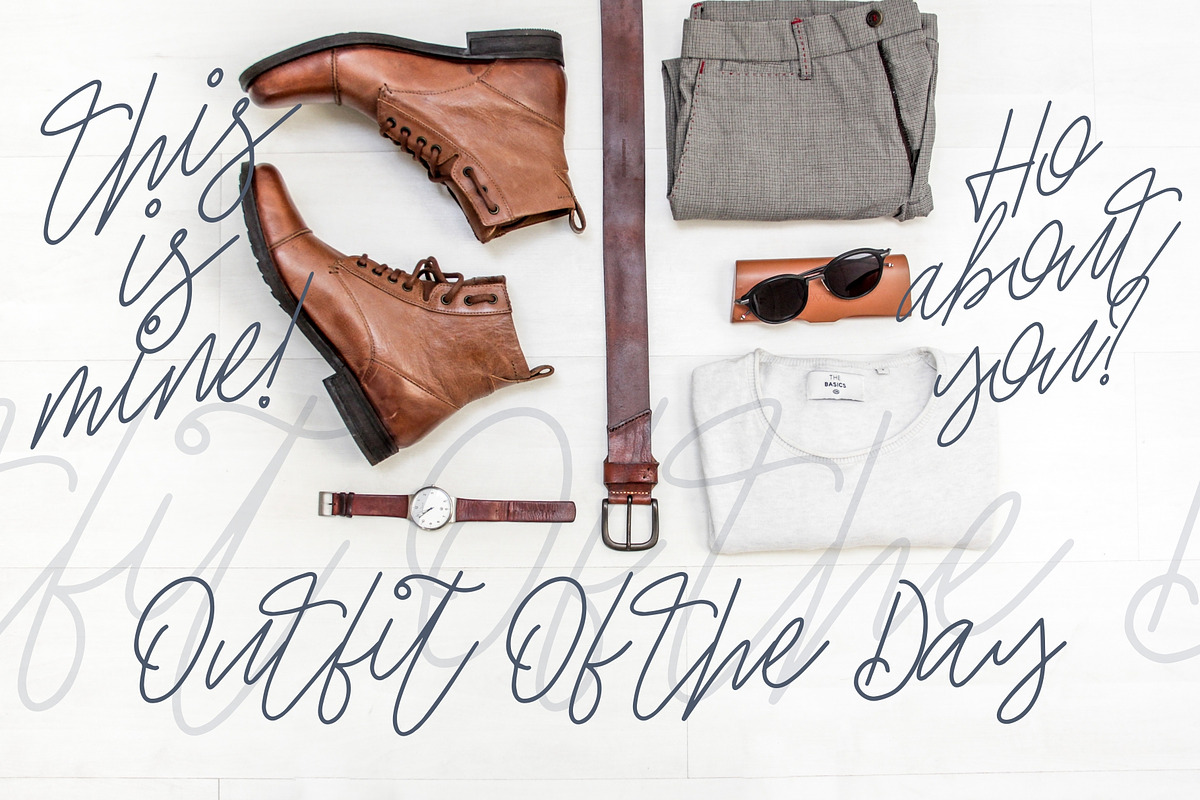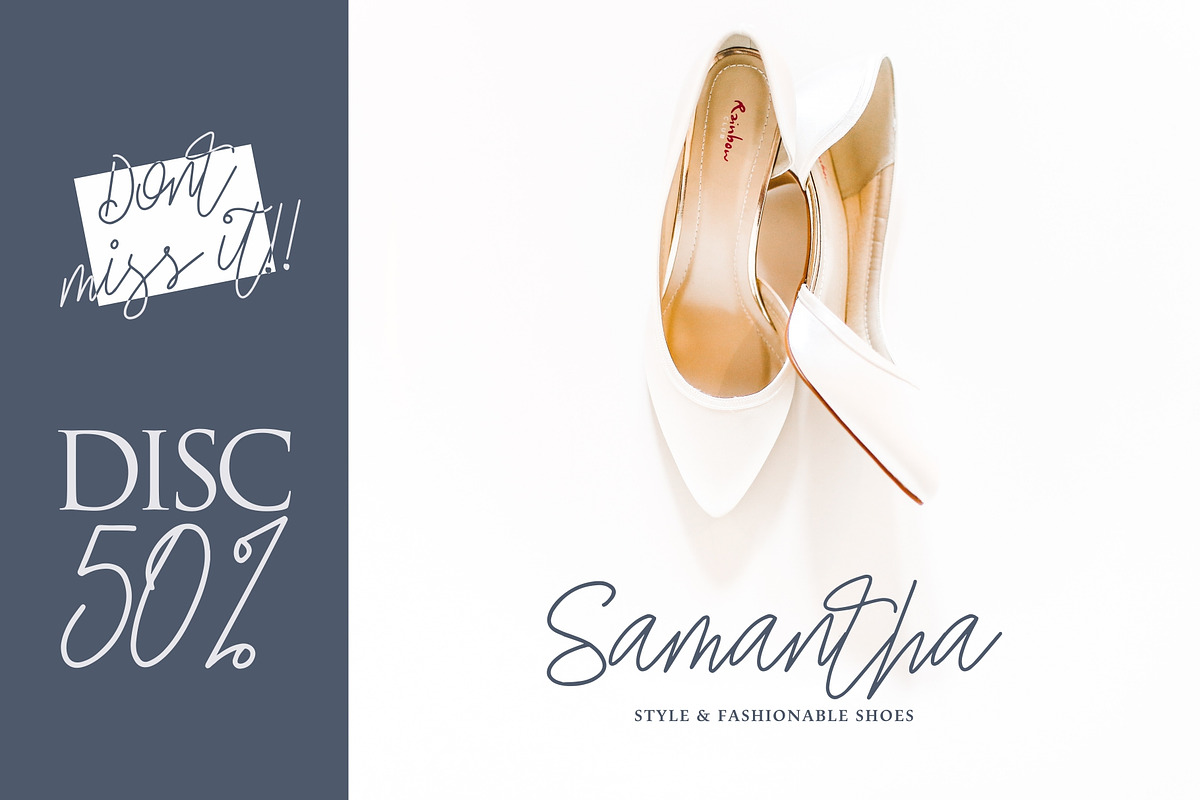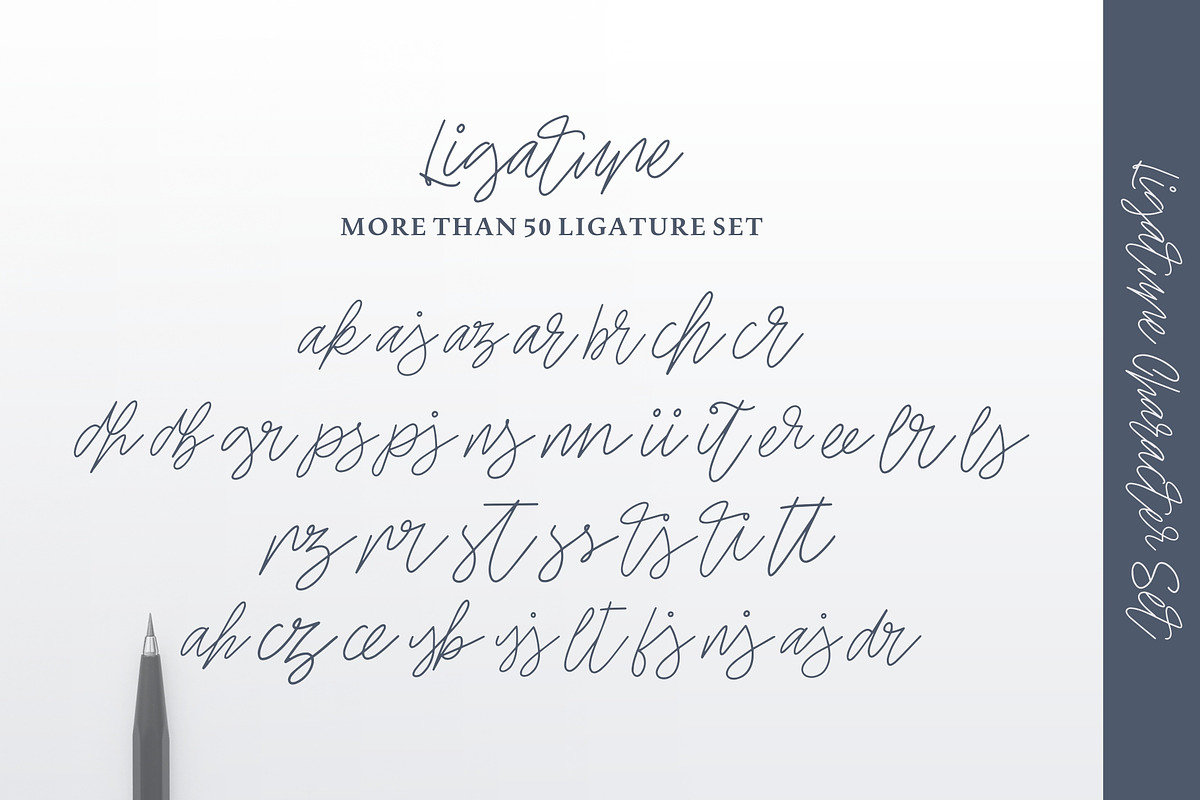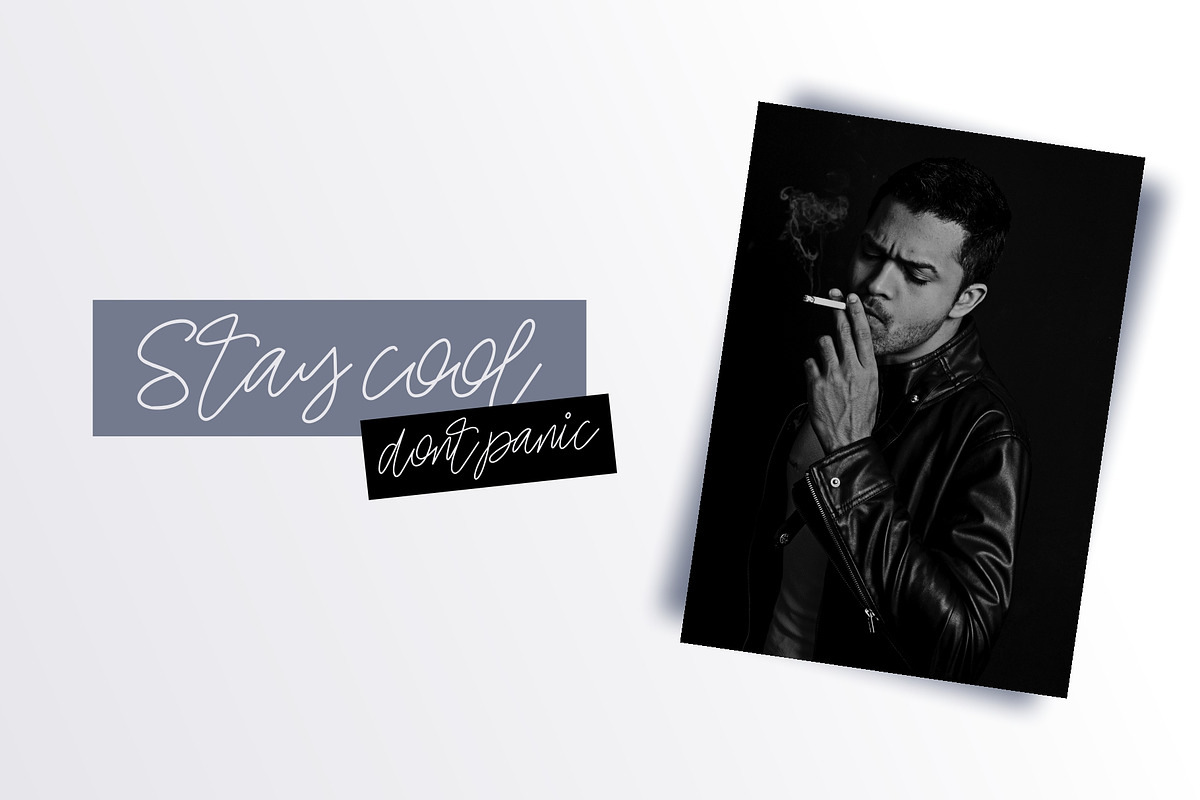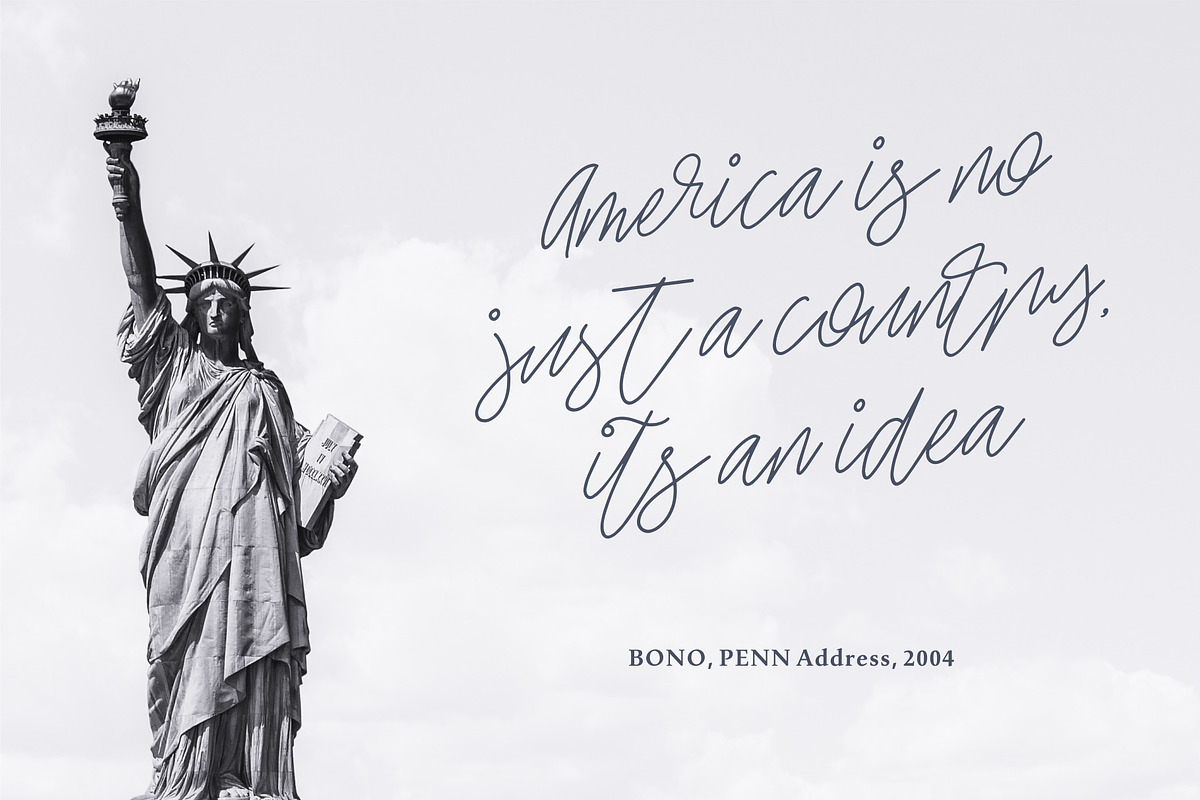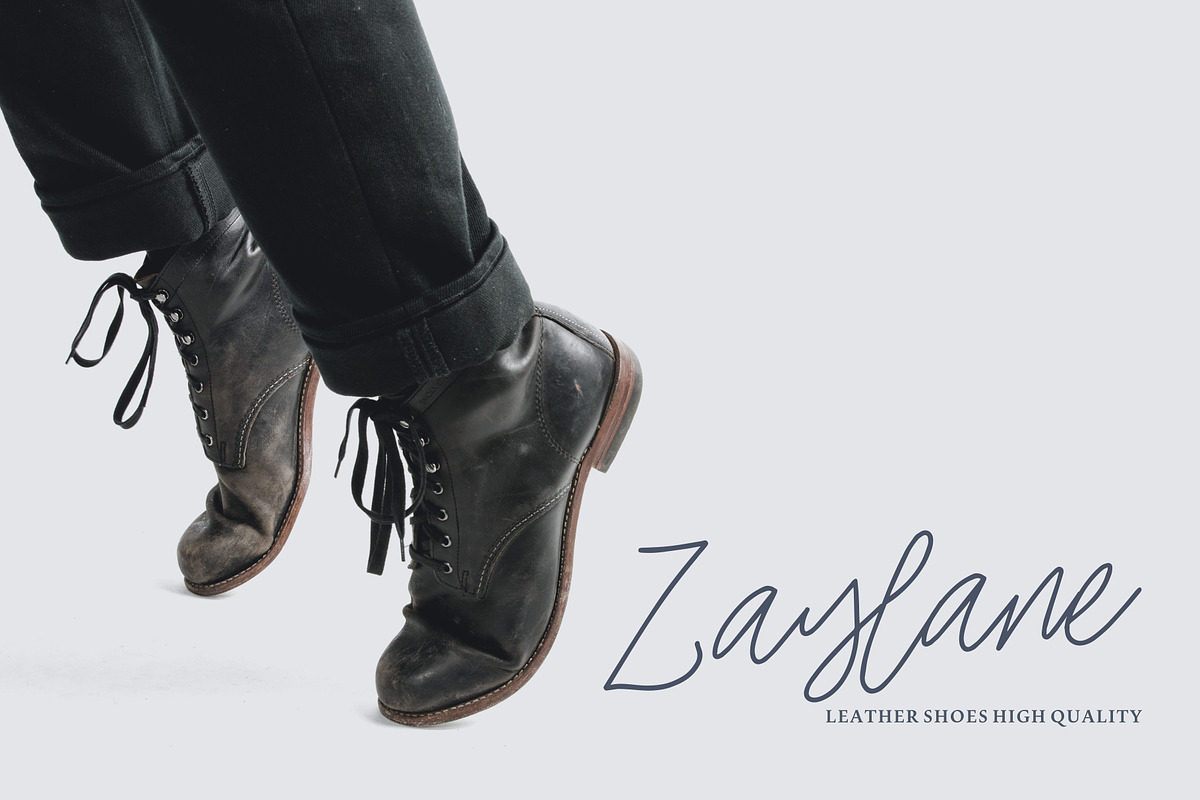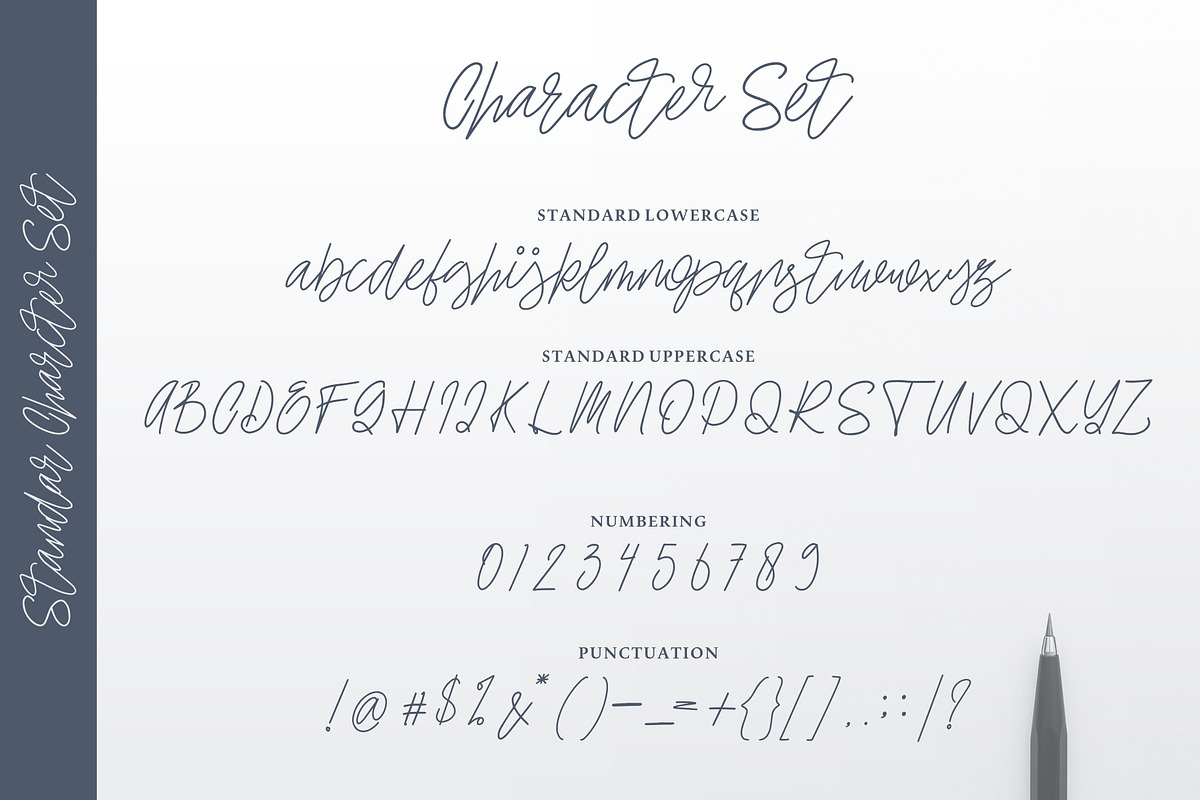
Ellaine Monoline Signature Font
Introducing Ellaine - a new signature monoline with elegant lines that makes this font perfect for imaging your personal brand and every great project, such as: logos, invitations, stationery, wedding designs, social media posts, advertisements, product packaging, product design, labels, photography, watermarks, special events, and more!
ADVANTAGES OF ELLAINE
Ligatures (more than 50)
Includes multilingual support
Why Ellaine Monoline Signature Font is worth a look